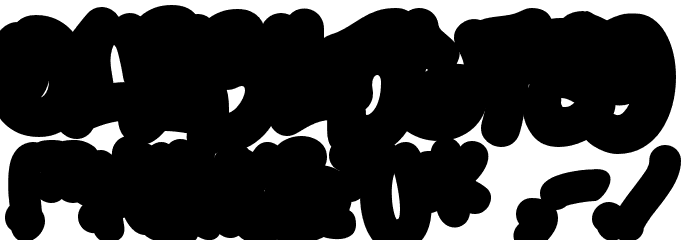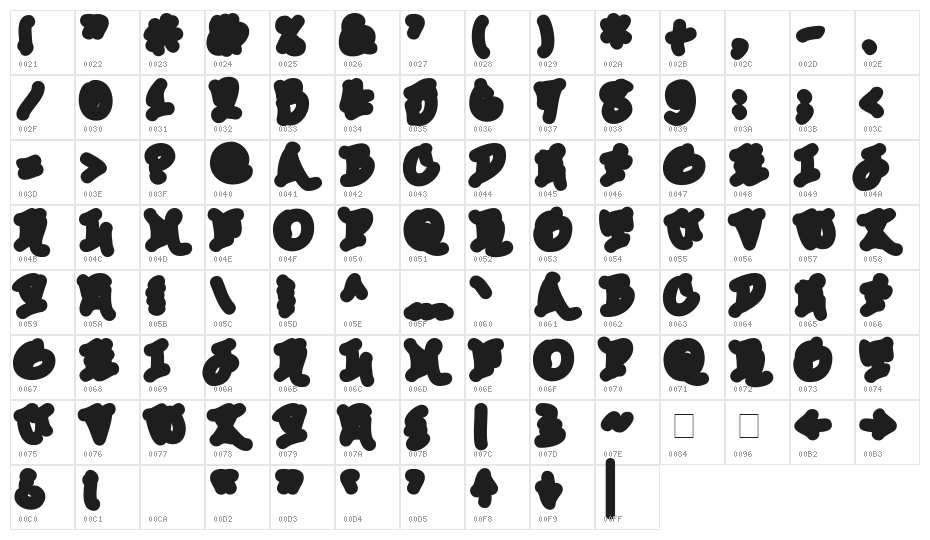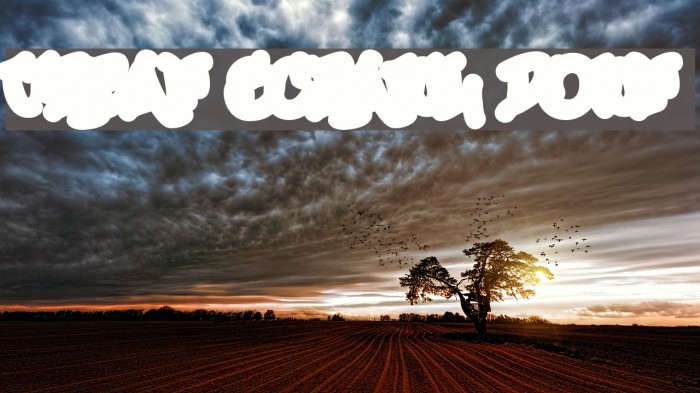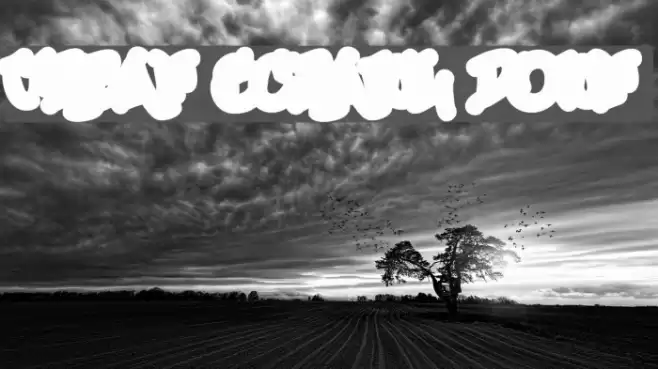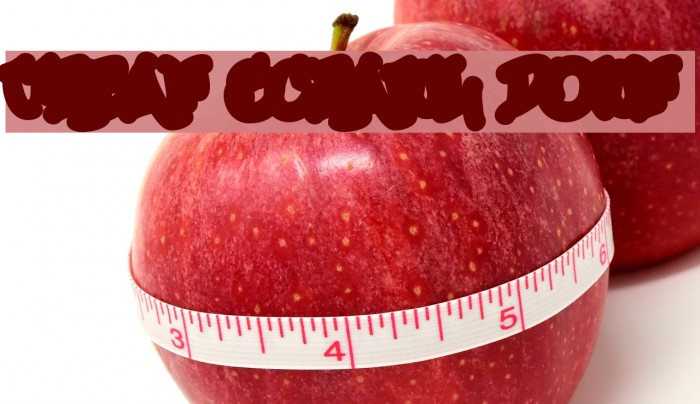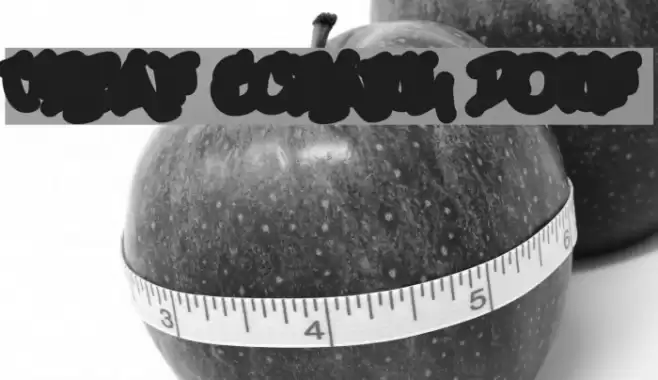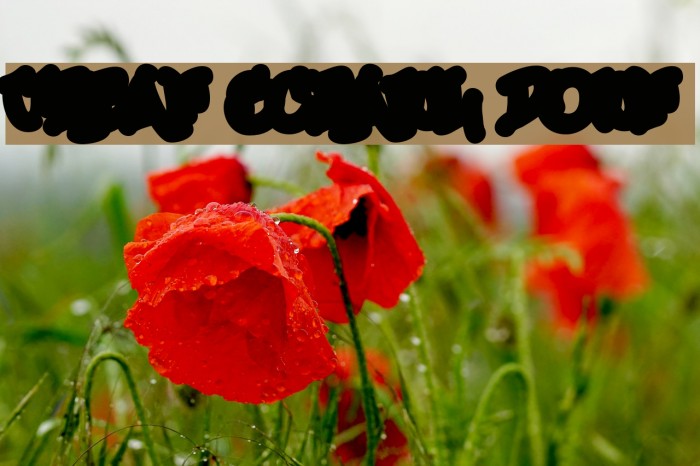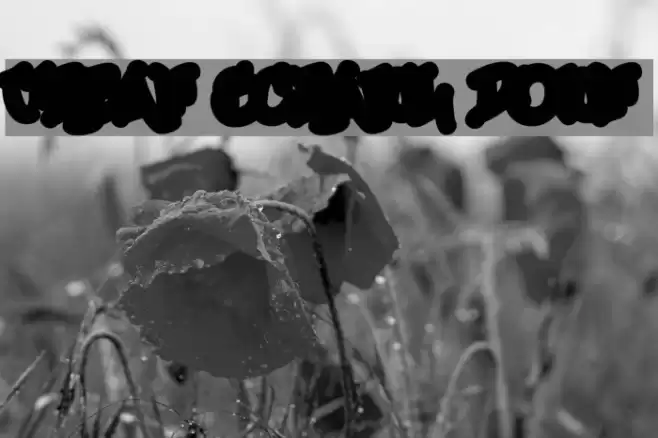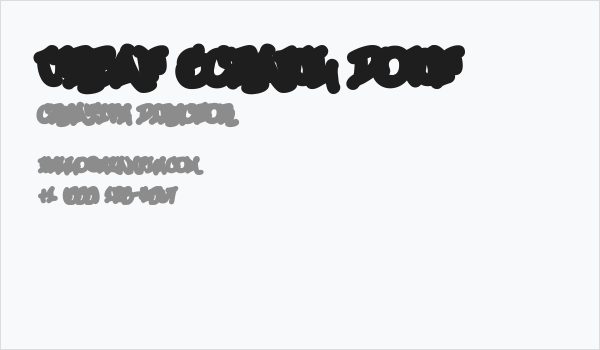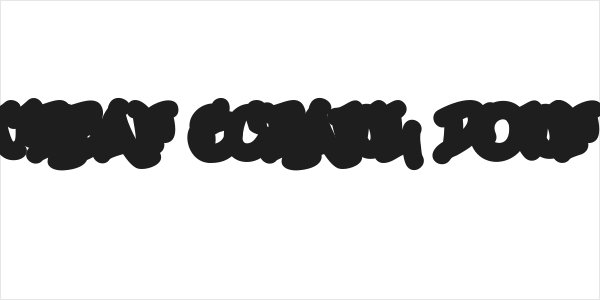
Urban Scrawl Down Font
Urban Scrawl Down Description
This font features a bold, graffiti-inspired style with thick, rounded strokes that create a sense of movement and energy. The letters are interconnected, giving the impression of a continuous flow, reminiscent of urban street art. The characters are highly stylized, with exaggerated curves and a playful, rebellious aesthetic. This font captures the essence of spontaneous creativity and is perfect for projects that aim to convey a sense of youthful exuberance and urban culture. The overall appearance is dynamic and eye-catching, making it suitable for designs that require a strong visual impact.
| Overall Style | Urban, Graffiti, Energetic |
| Proposed Projects | Ideal for street art posters, music album covers, urban-themed branding, and event flyers. |